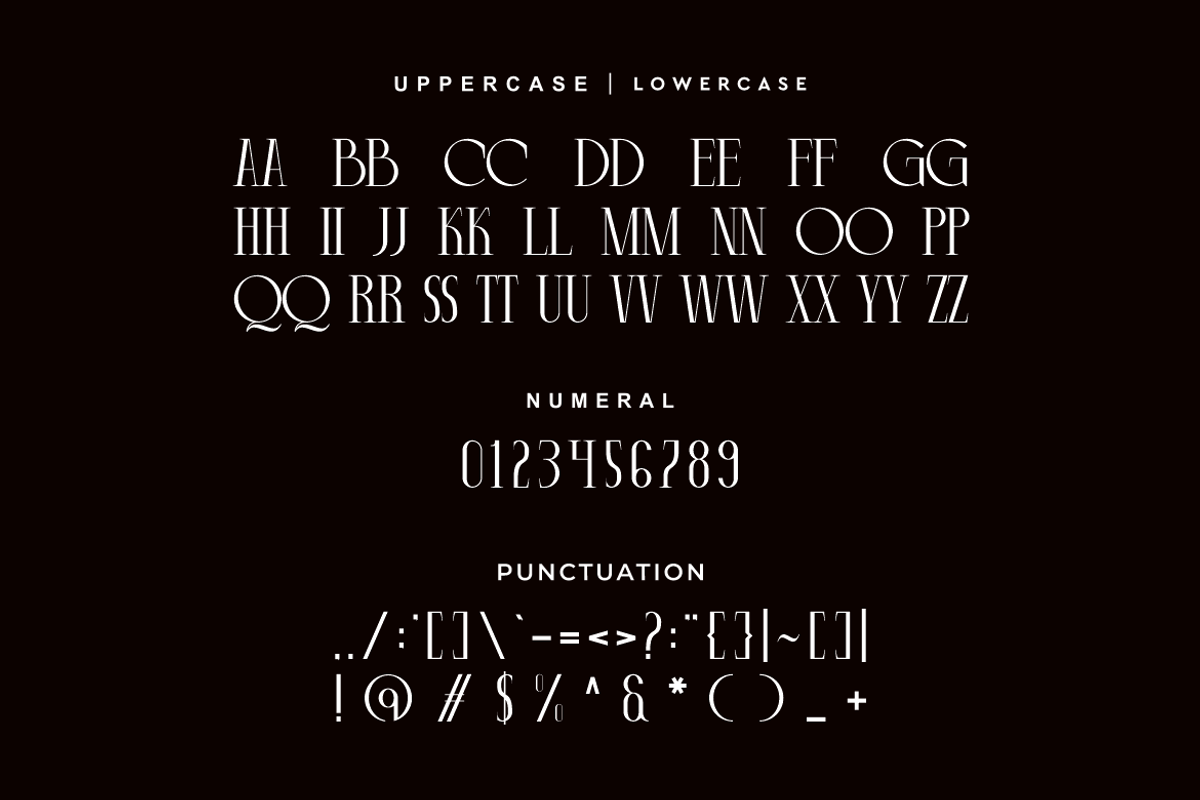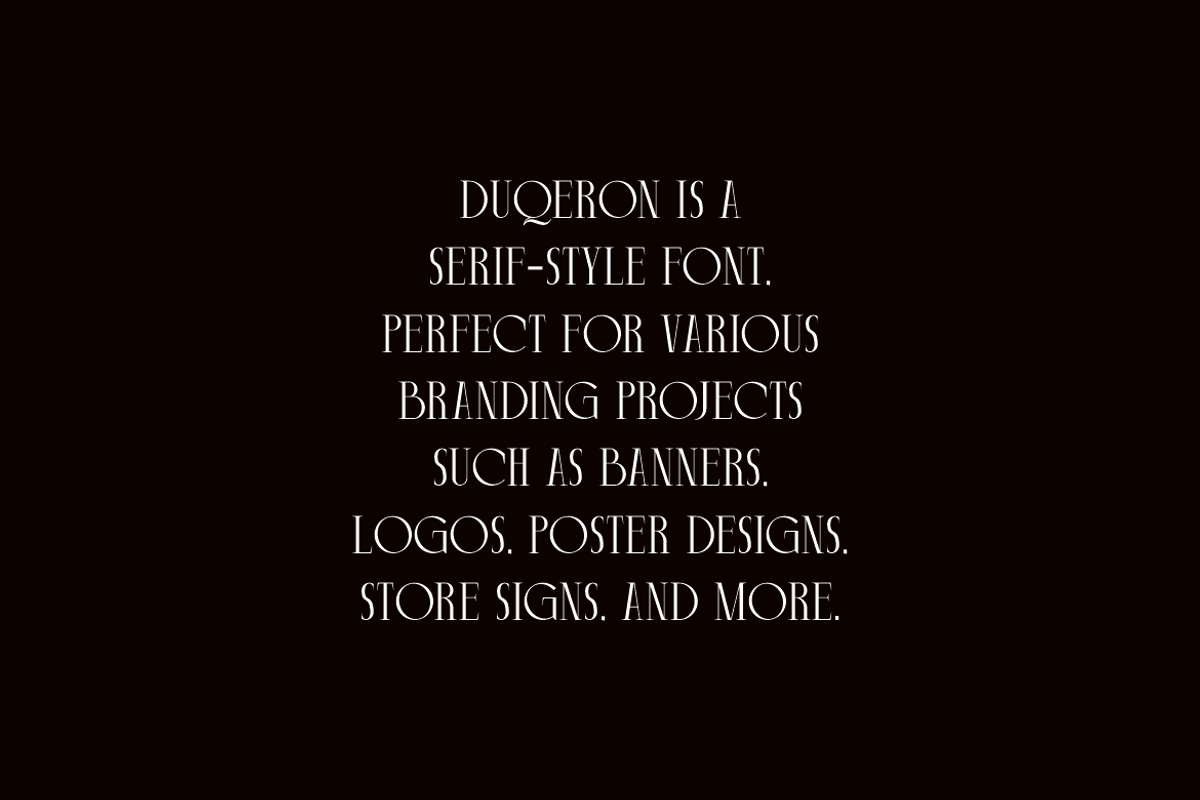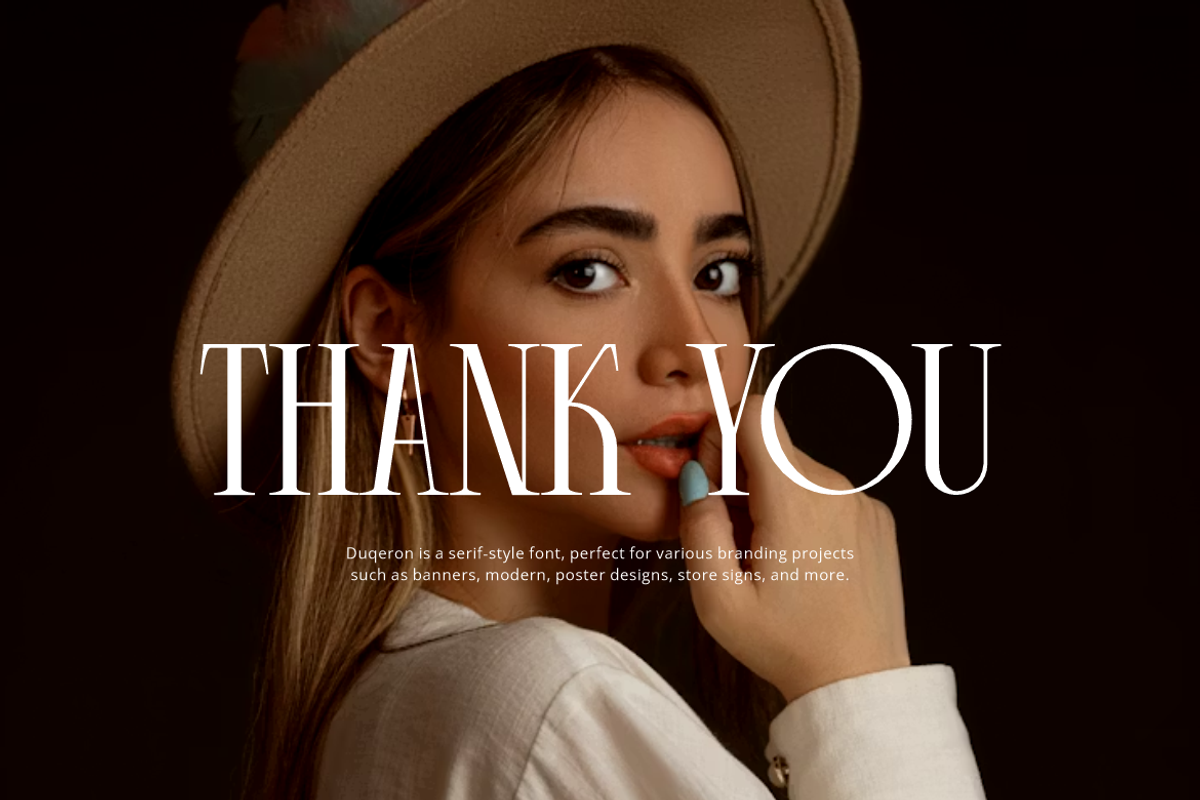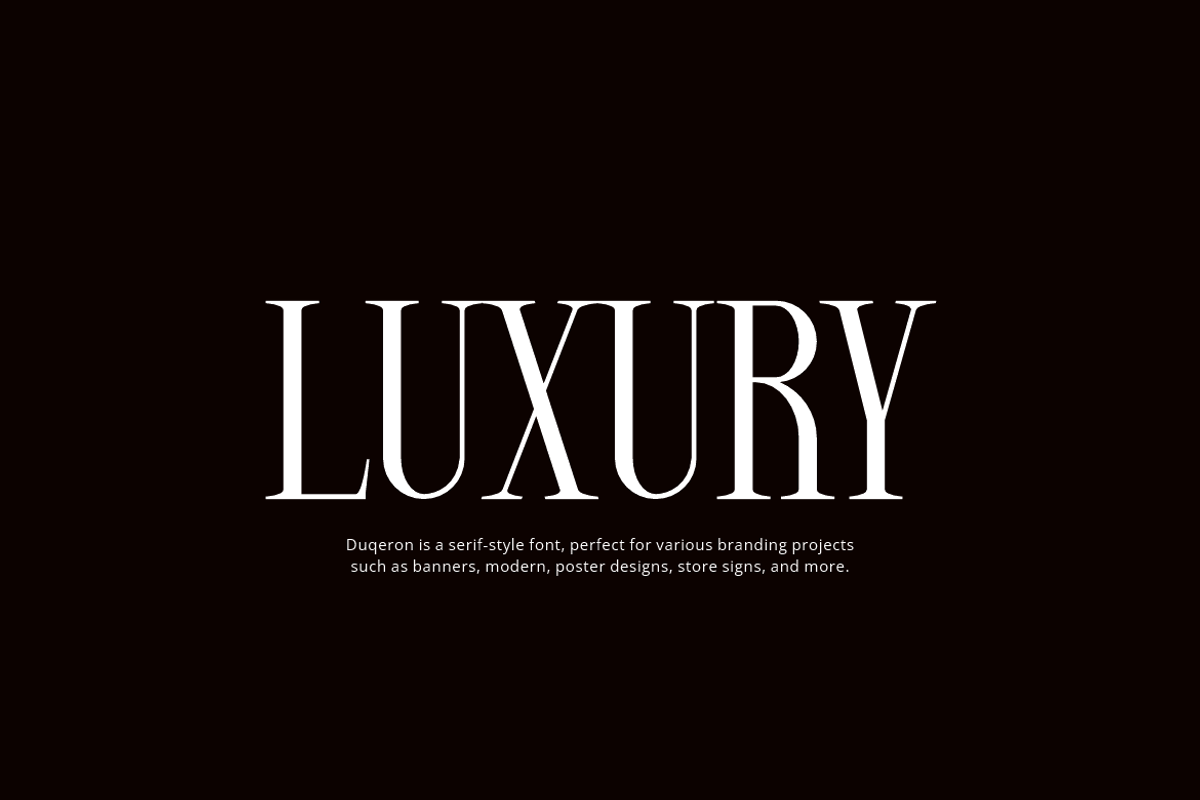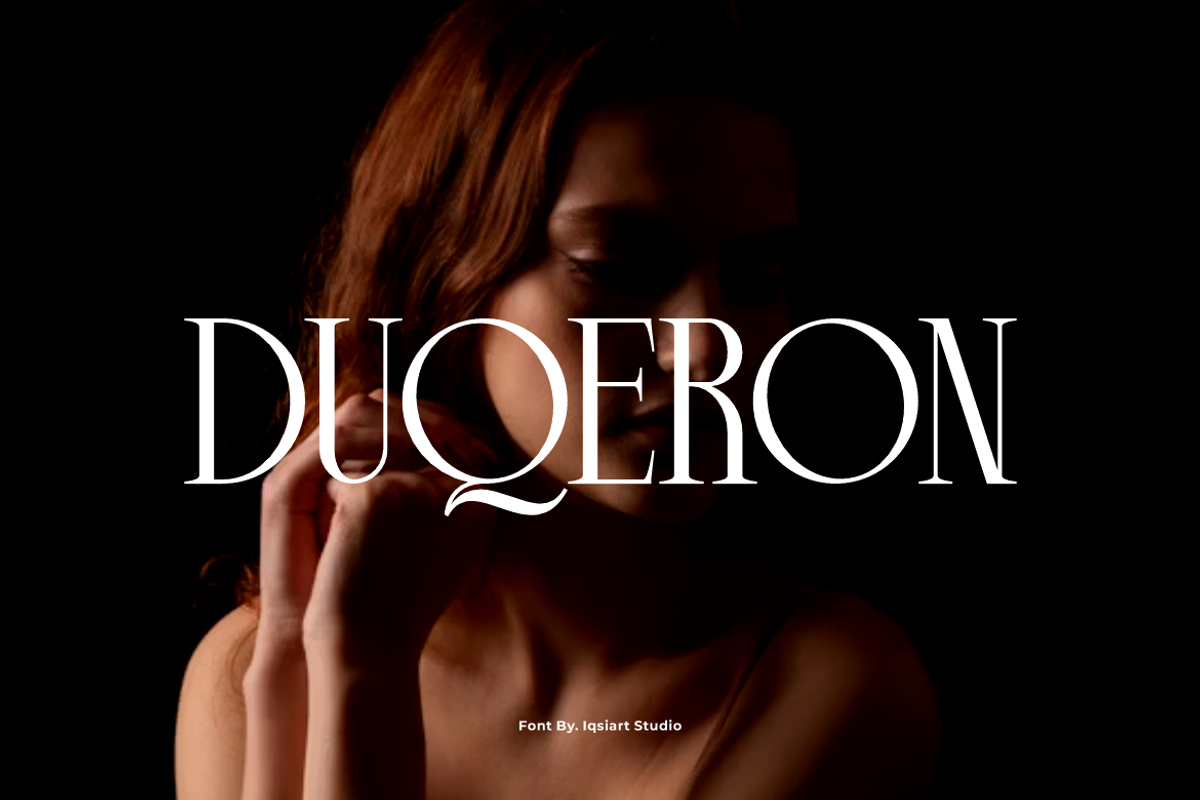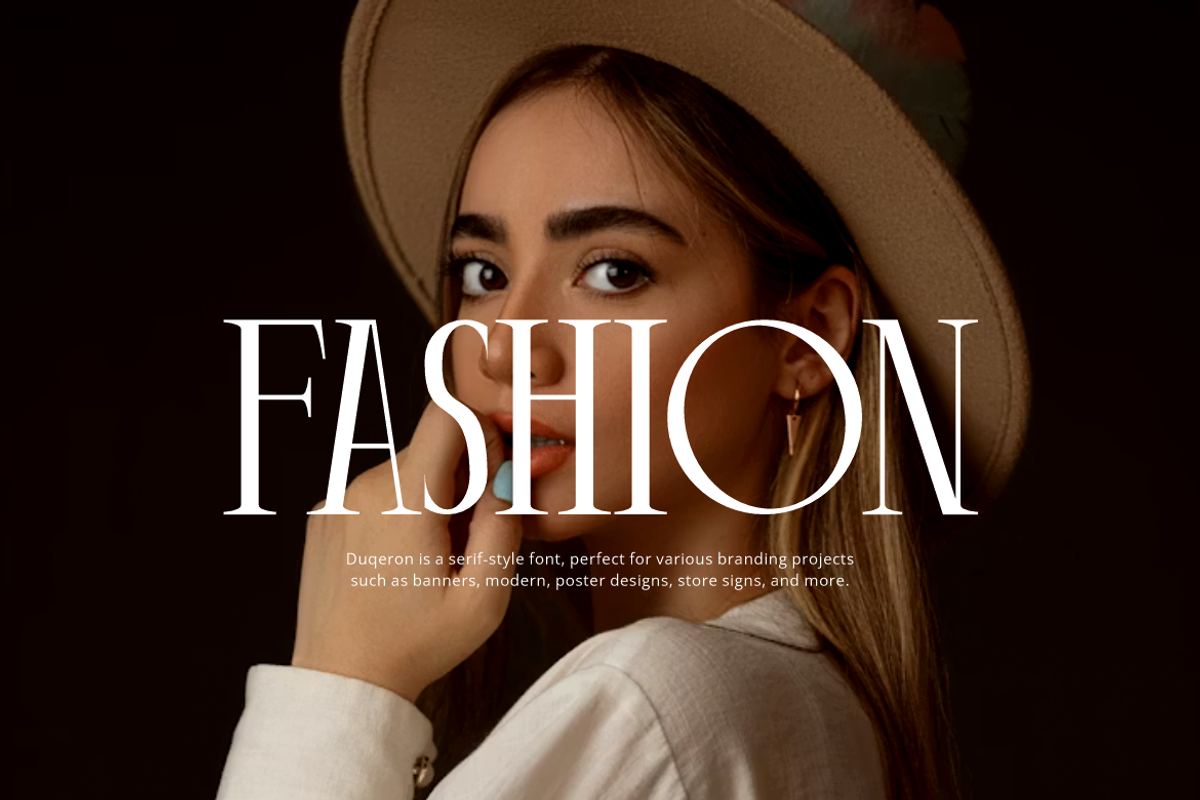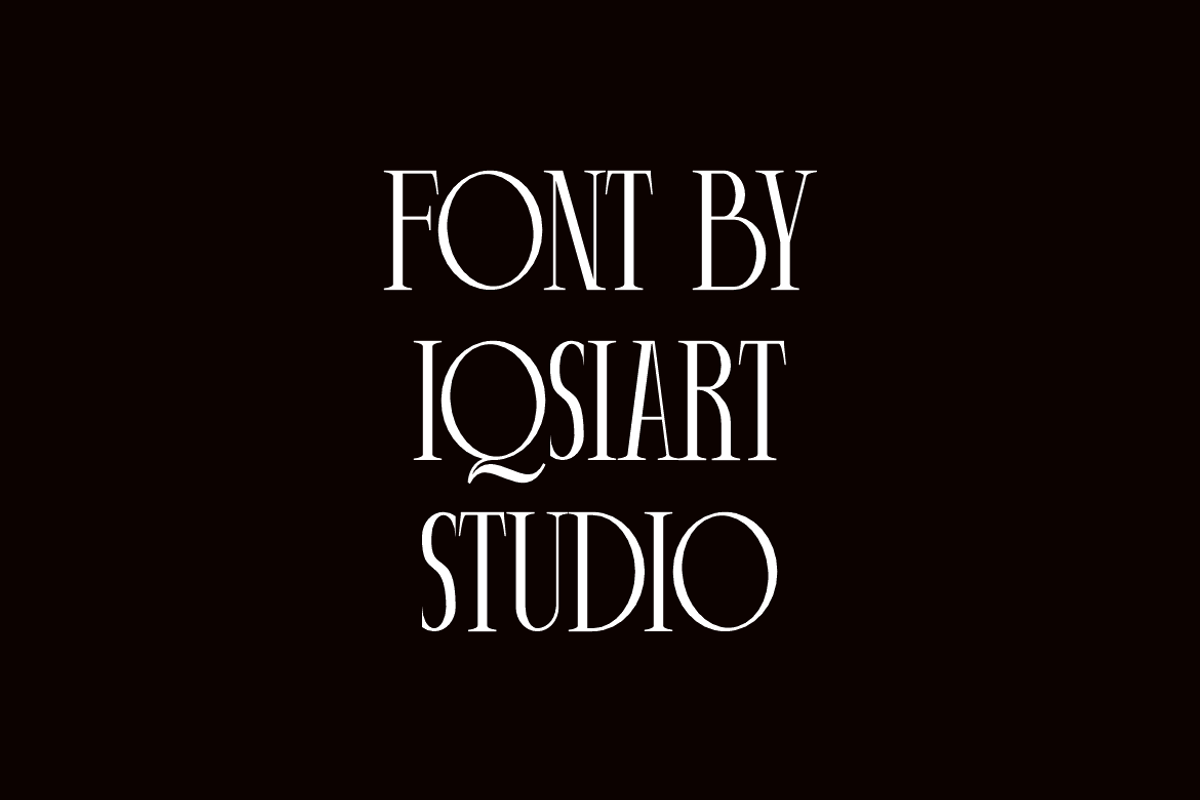
Duqeron - Modern Elegant Font
Duqeron Font is a serif and authentic display typeface that suits a variety of design needs. We offer a wide range of themes and font styles — visit our profile to explore more and find the perfect style for your project.